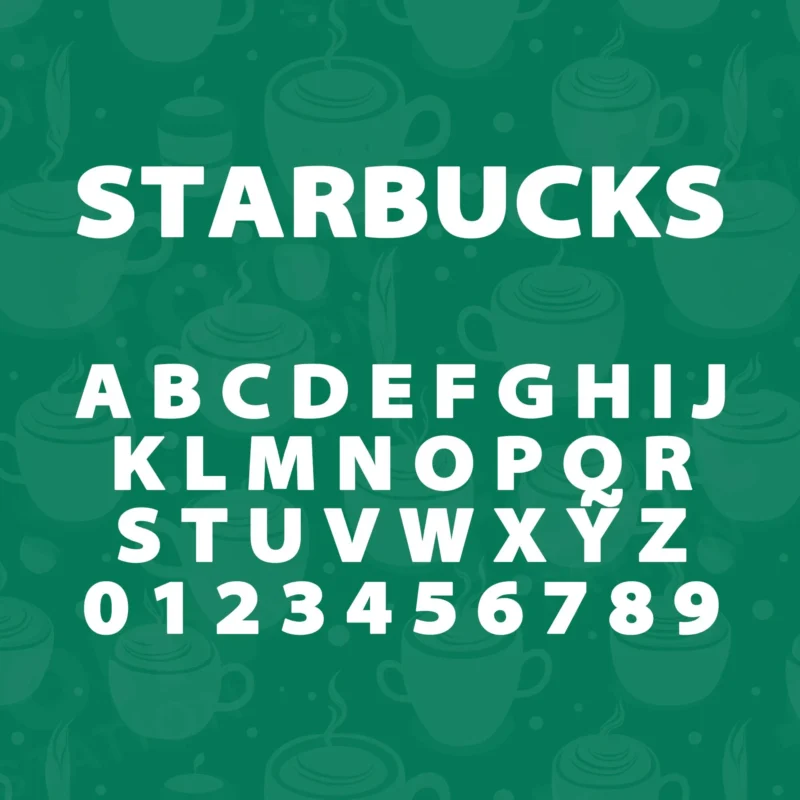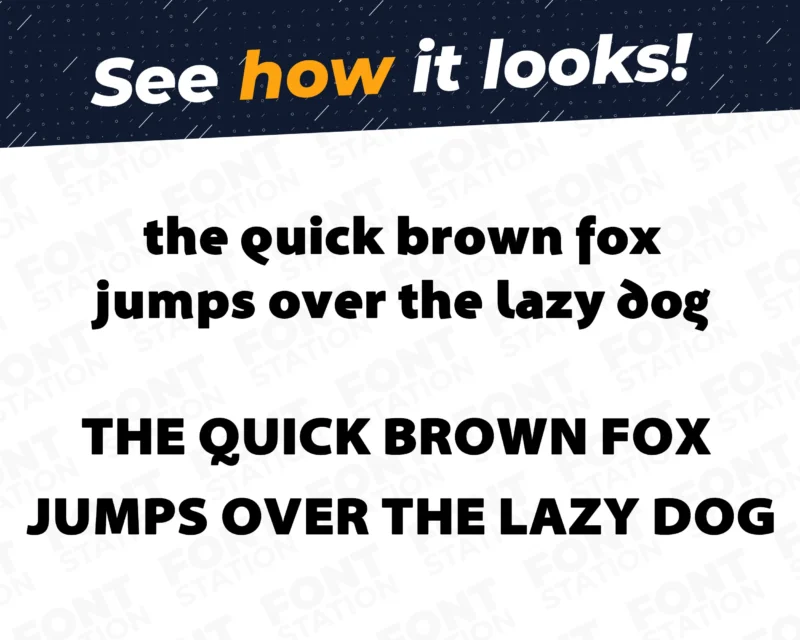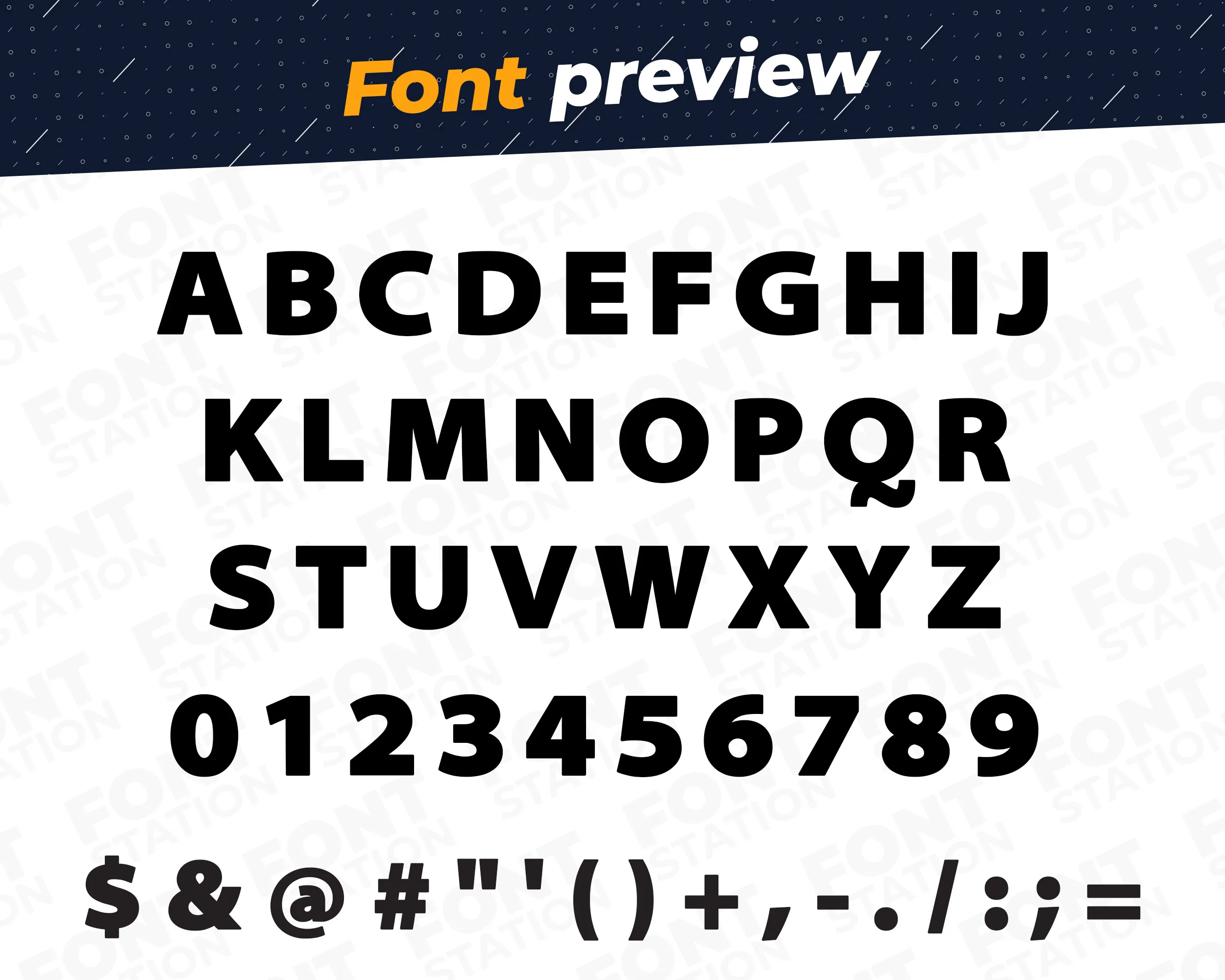
Our Coffee Shop typeface, inspired from Starbucks font
Grab your computer, tablet or other device and start creating right now with our Starbucks font letters! Our Coffee Shop typography is inspired from Starbucks font, making it ideal for various digital creations (logo, word…), sublimation, cake toppers, stickers, event decorations, and more.
Image showing all characters available in the Starbucks Coffee Shop font created by FontMaze
Starbucks Font